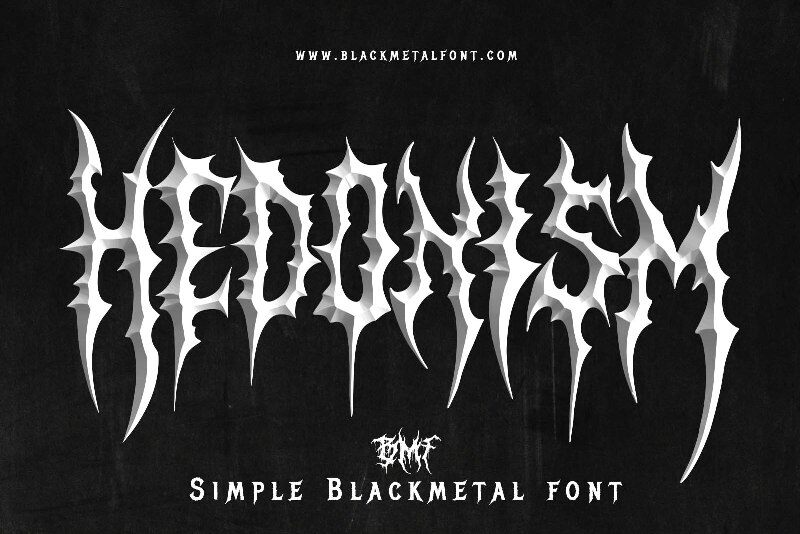
Hedonism
Hedonism font, designed by Blackmetal Font, captivates with its striking and edgy character. This display typeface exudes an air of thrilling intensity, characterized by its sharp, jagged edges that evoke a sense of fearlessness and rebellion. The condensed form enhances its boldness, making it visually arresting in any setting.
Perfect for horror-themed projects, music album covers, or anything seeking to evoke a dark aesthetic, Hedonism stands out with an unmistakable presence. Its unique style captures attention effortlessly while conveying a strong message-ideal for branding that demands to be noticed. Whether used in graphic design or typography art, this font transforms ordinary text into something extraordinary and memorable.